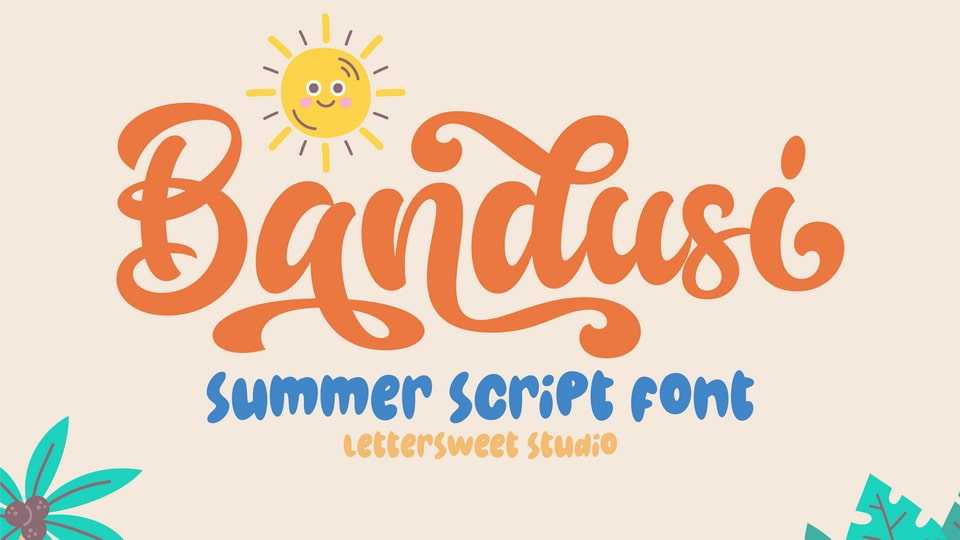
Download Bandusi font, a playful summer script that brings sunshine to your designs with its cheerful hand-lettered style and smooth, bouncy strokes.